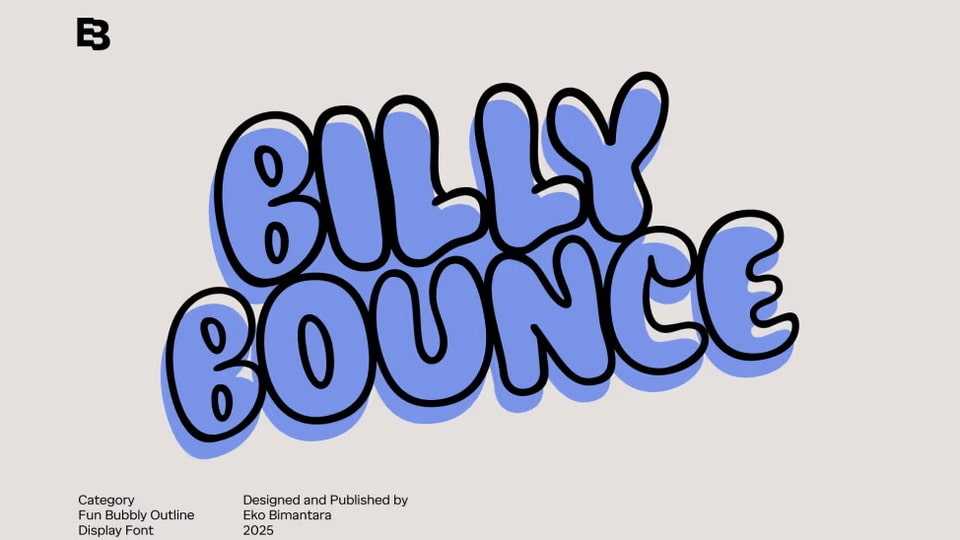
Download Billy Bounce font, a fun, bubbly outline display typeface, designed to bring joy and energy to your creative projects with its chunky letterforms, bold outlines, and playful bounce.